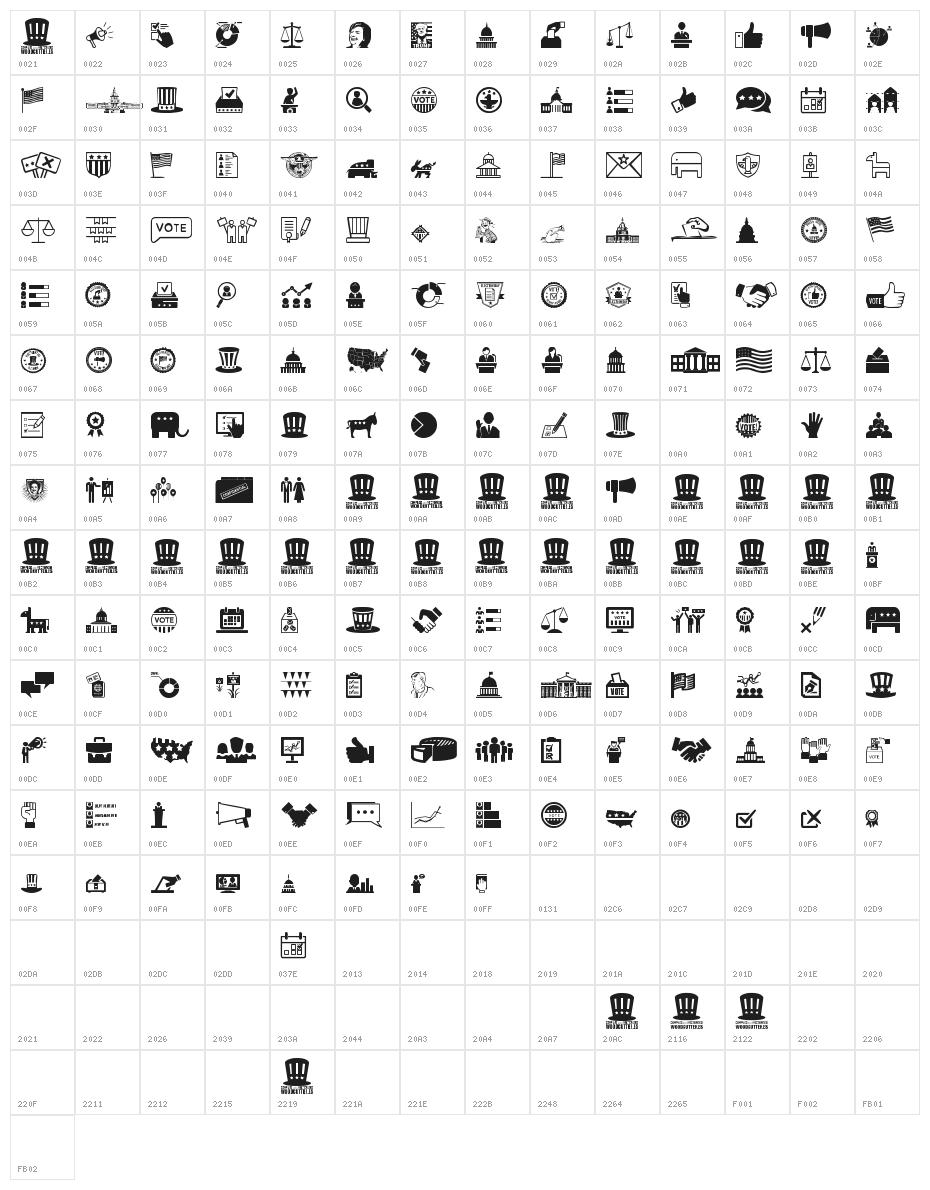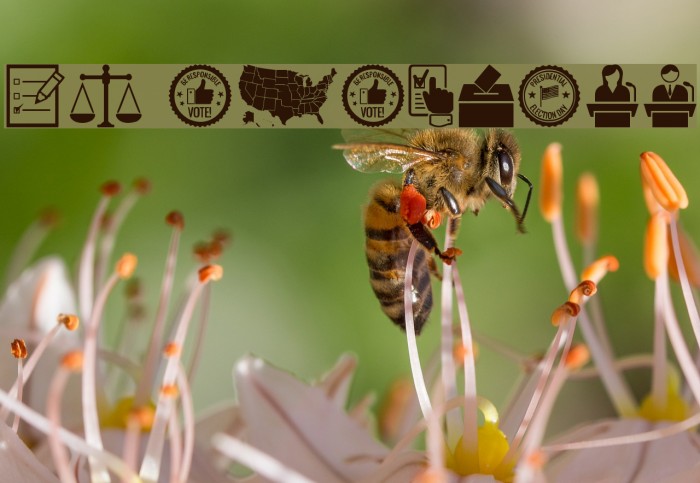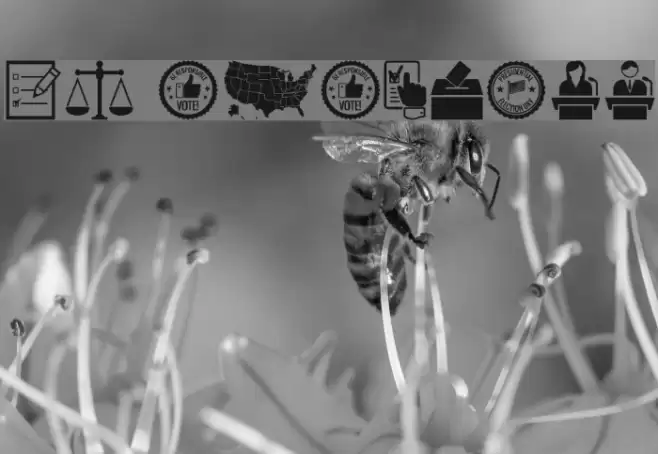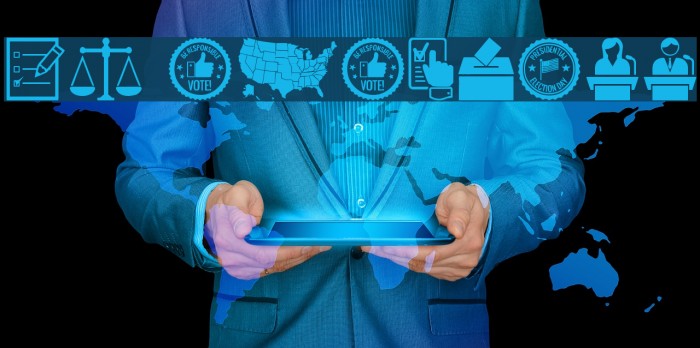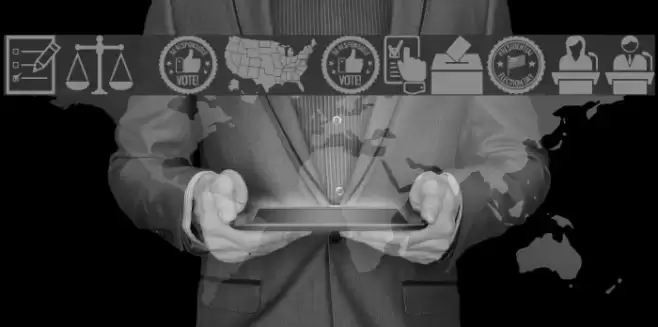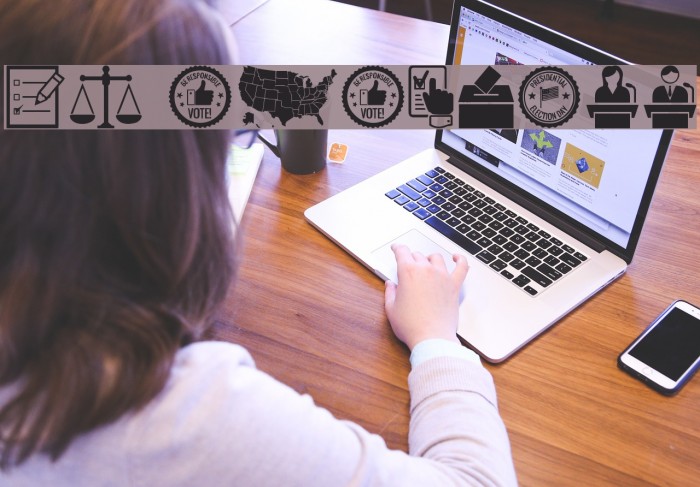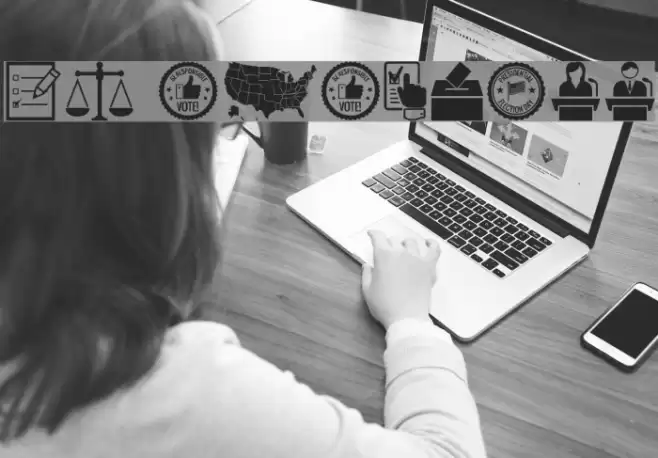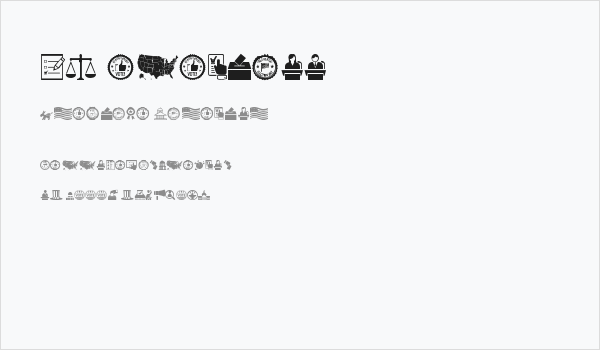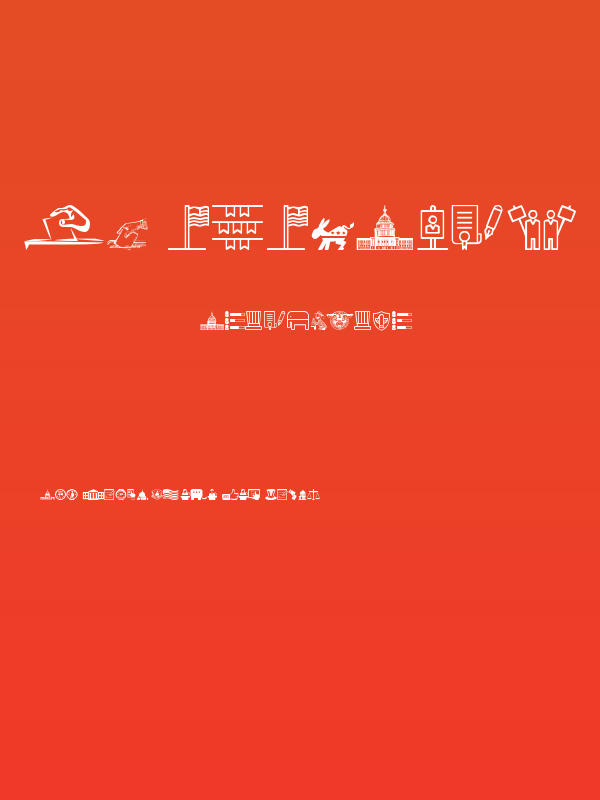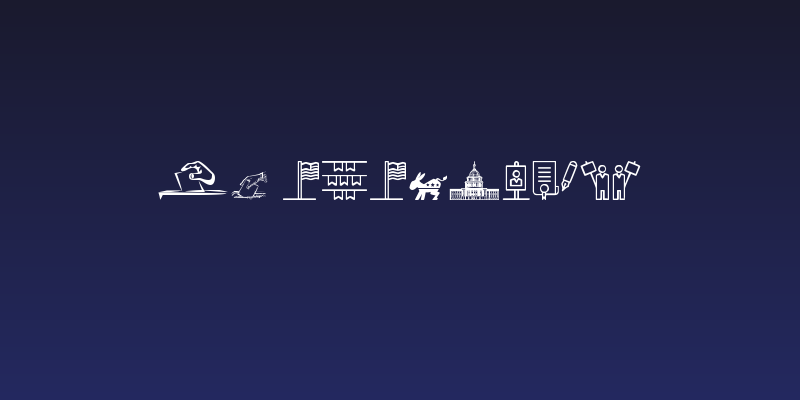
us election Font
us election Description
A collection of bold, monochromatic political and election-themed icons, including symbols such as ballots, voting boxes, politicians, government buildings, party mascots, badges, and patriotic elements. The icons are highly stylized with clear outlines and filled shapes, designed for maximum legibility and impact.
| Overall Style | Decorative, Modern, Thematic |
| Use Case | Icons, Infographics, Logos, Headlines |
| Proposed Projects | Election websites, political campaign materials, infographics, educational resources, social media graphics. |